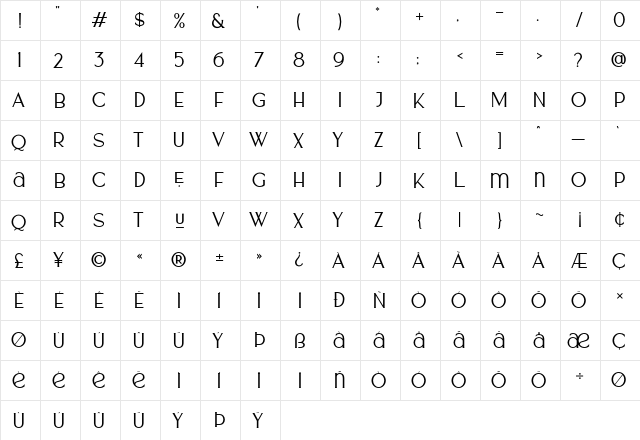
Murberry Normal
Design Context for Murberry Typeface
Murberry offers clean, dependable letterforms without strong stylistic allegiance, making it a practical choice for designers who need flexibility.